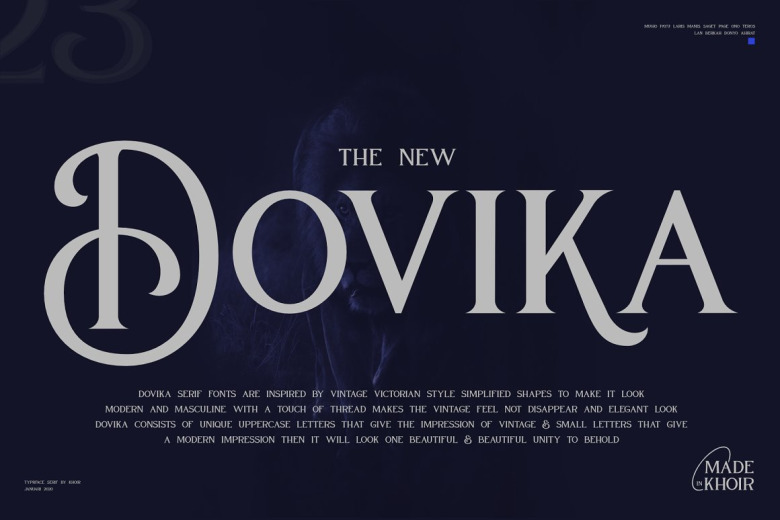
Dovika Font
Introducing dovikia Serif Fonts that is suitable to use in many design projects. This typeface is inspired by vintage victorian style serif and make it simplified to make it look modern and masculine, now the vintage victorian looks are ready to use for your need with this Dovika Serif Fonts that has added with little touch of thread to make it vintage feel not lost and looks elegant dovikia consists of unique uppercase letters that give the impression of vintage & small letters tha give a modern impression then it will look a single unit.
Dovika Serif Font